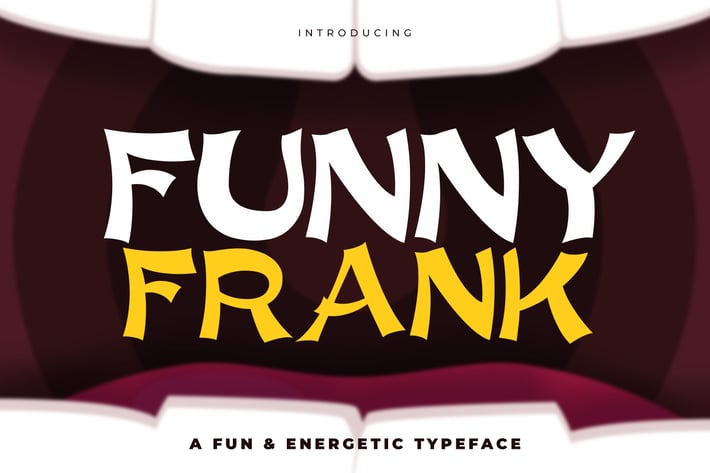
Funny Frank - An Energetic and Quirky Typeface
Introducing Funny Frank - A Fun and Energetic Typeface.
Funny Frank was made to be taken a grain of salt and not too seriously.
It's perfect for all kinds of T-Shirt and product designs. Frank also get's along all the other typefaces and does not mind being next to a serif of sans-serif so you can use it to create aweosme typographic compositions.